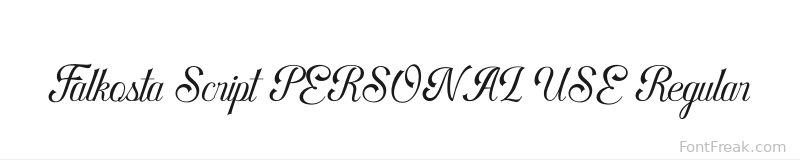
Falkosta Script PERSONAL USE Regular
Falkosta Script PERSONAL USE Regular is a beautifully crafted script font designed by Mans Greback, categorized under handwritten fonts. This typeface showcases elegant, flowing strokes that resemble traditional calligraphy, making it a perfect choice for a variety of personal projects. The font features a moderate stroke weight with subtle contrast, allowing for legibility while maintaining a decorative flair. The spacing between characters is thoughtfully designed to enhance readability without sacrificing the artistic quality of the script, and the decorative elements, such as swooping ascenders and descenders, add a unique charm.
Ideal use cases for Falkosta Script include wedding invitations, where its romantic style can convey heartfelt messages, and greeting cards that require a personal touch. It also shines in branding for small businesses, particularly those in the creative sector, such as florists or boutique shops, helping to convey a sense of warmth and individuality. Restaurant menus can also benefit from this font, as it can add an elegant touch to dishes while enhancing the overall dining experience. Additionally, social media graphics and content created by influencers can leverage this font to create visually appealing posts that capture attention.